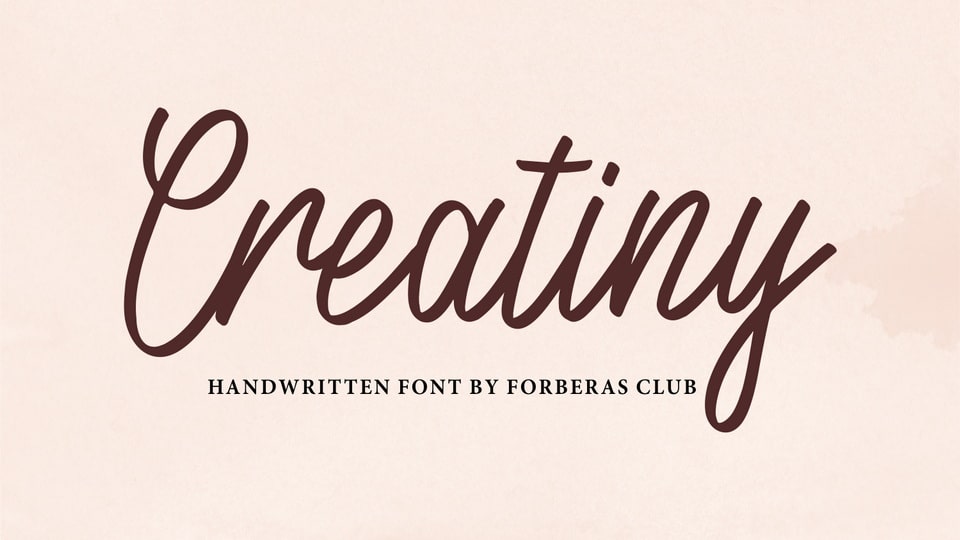
Download Creatiny font, a script typeface inspired by simple and casual handwriting. Creatiny is especially designed for crafts and hand made projects.